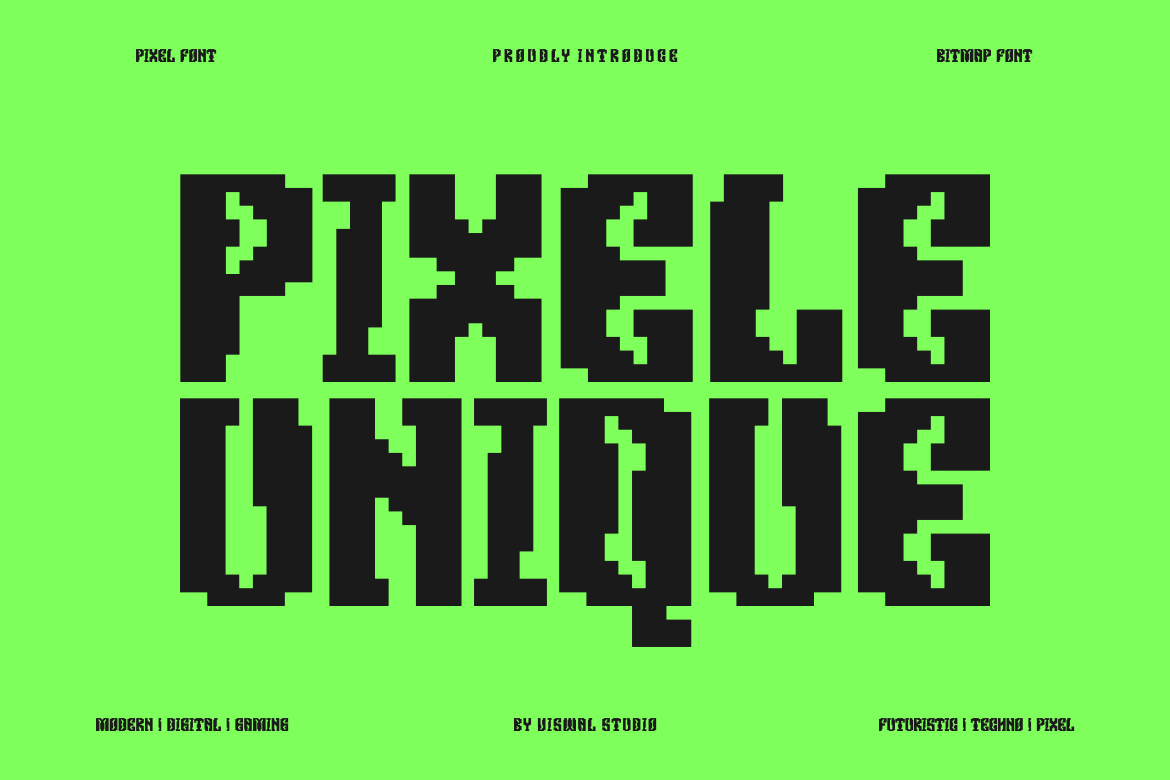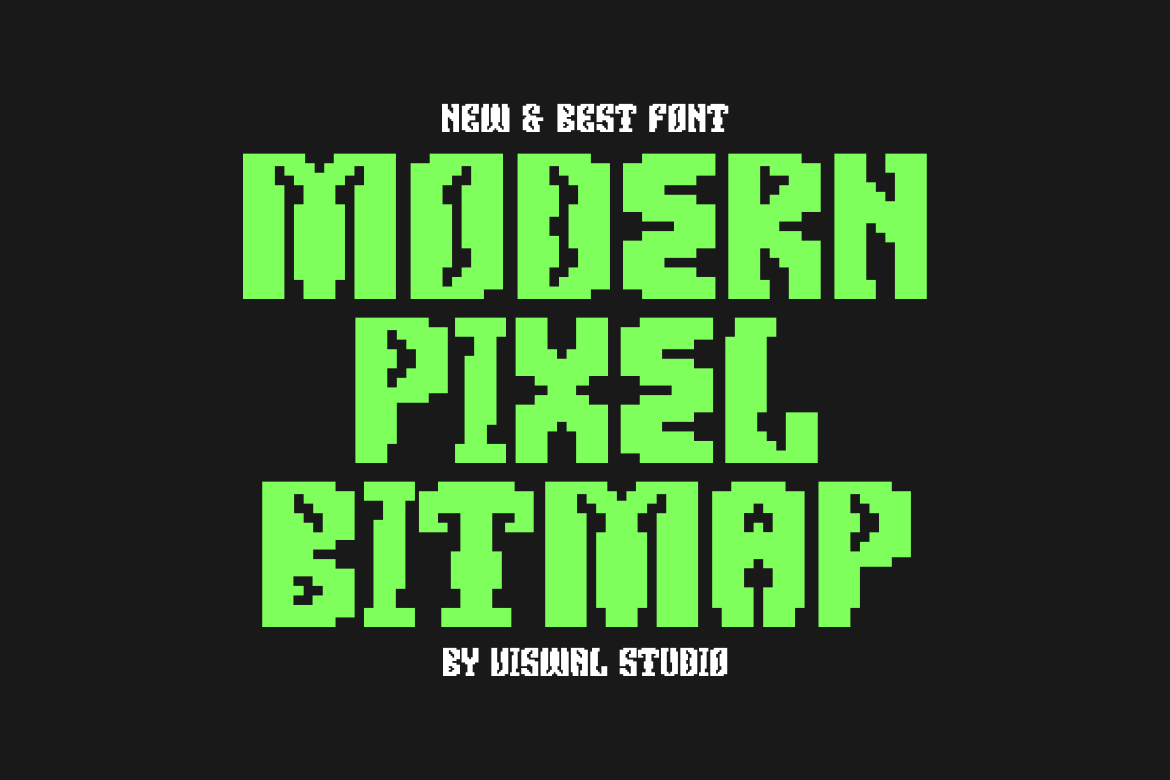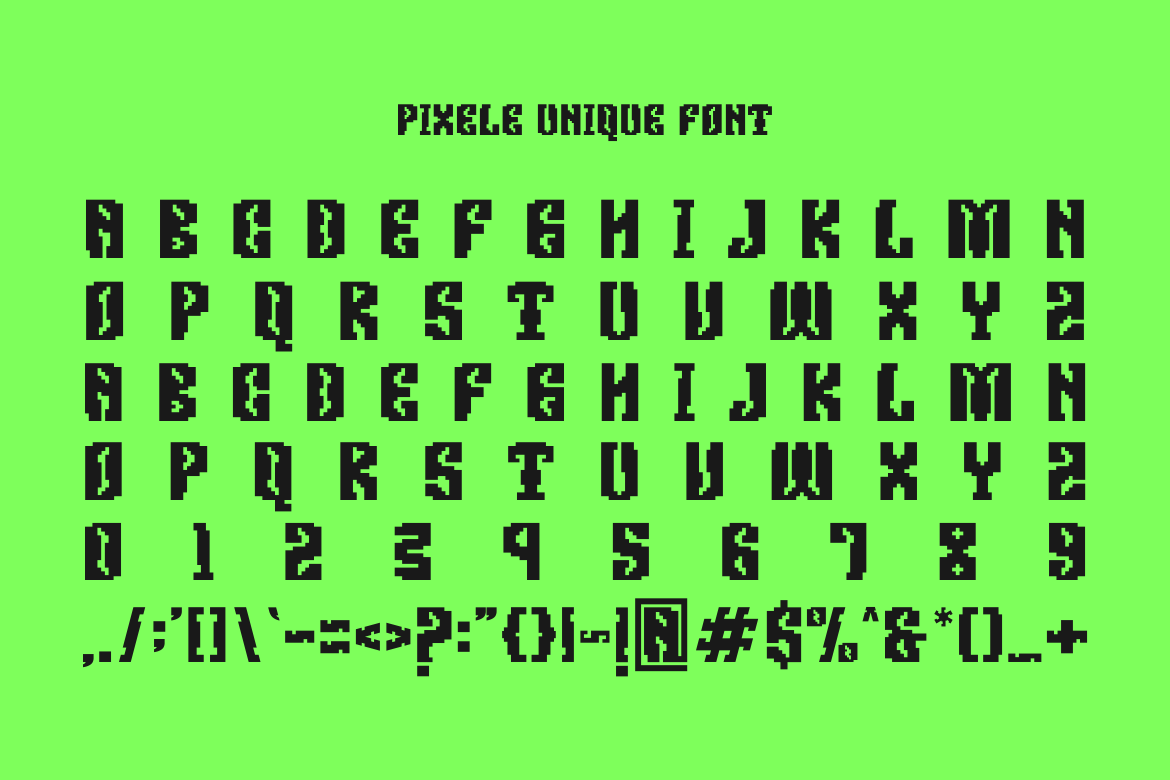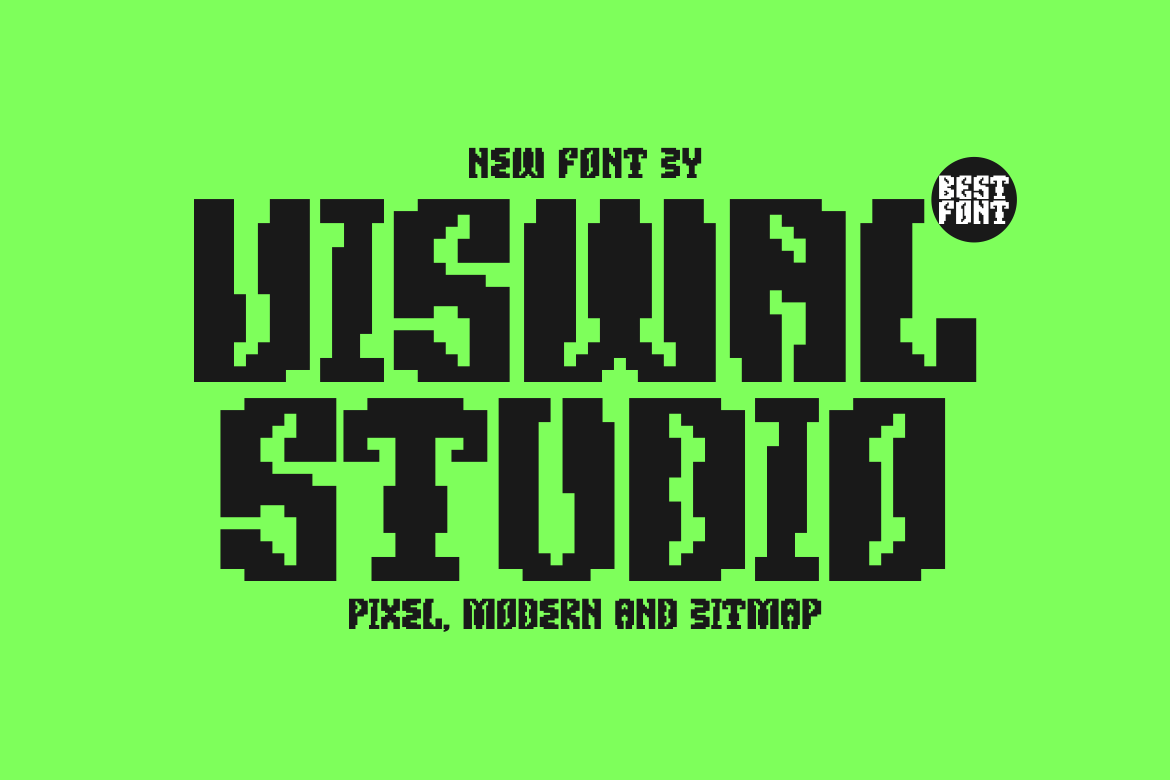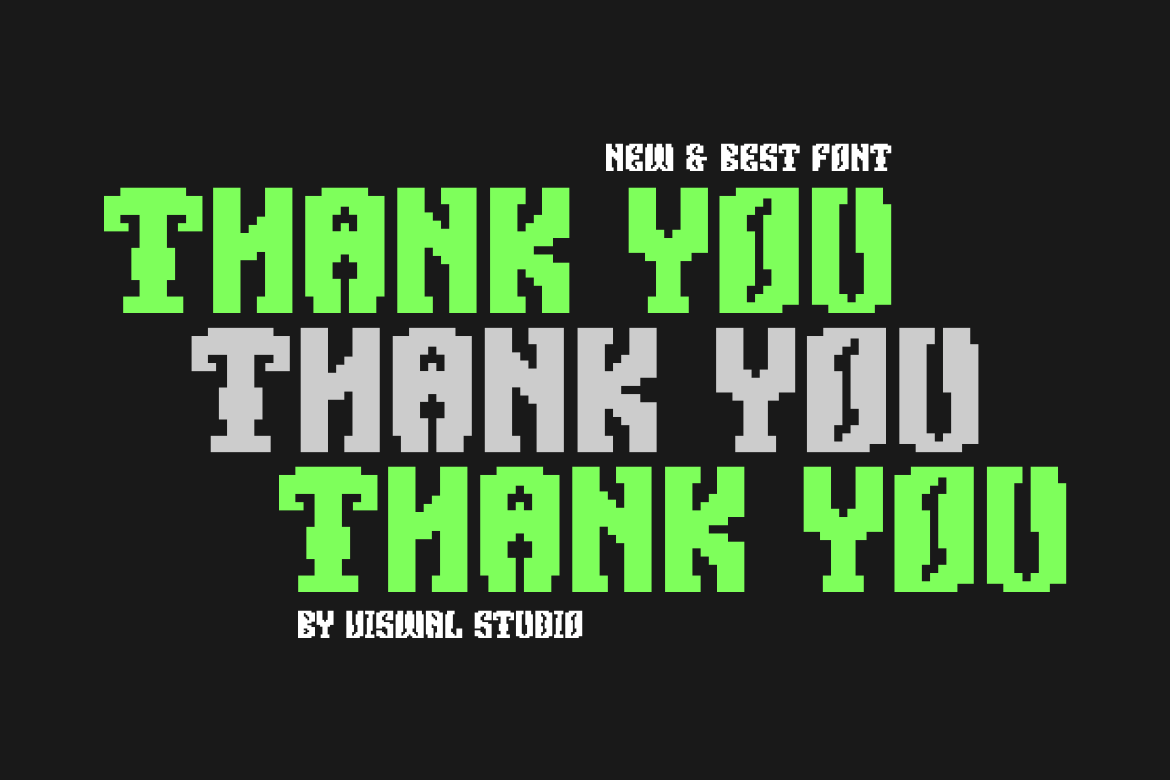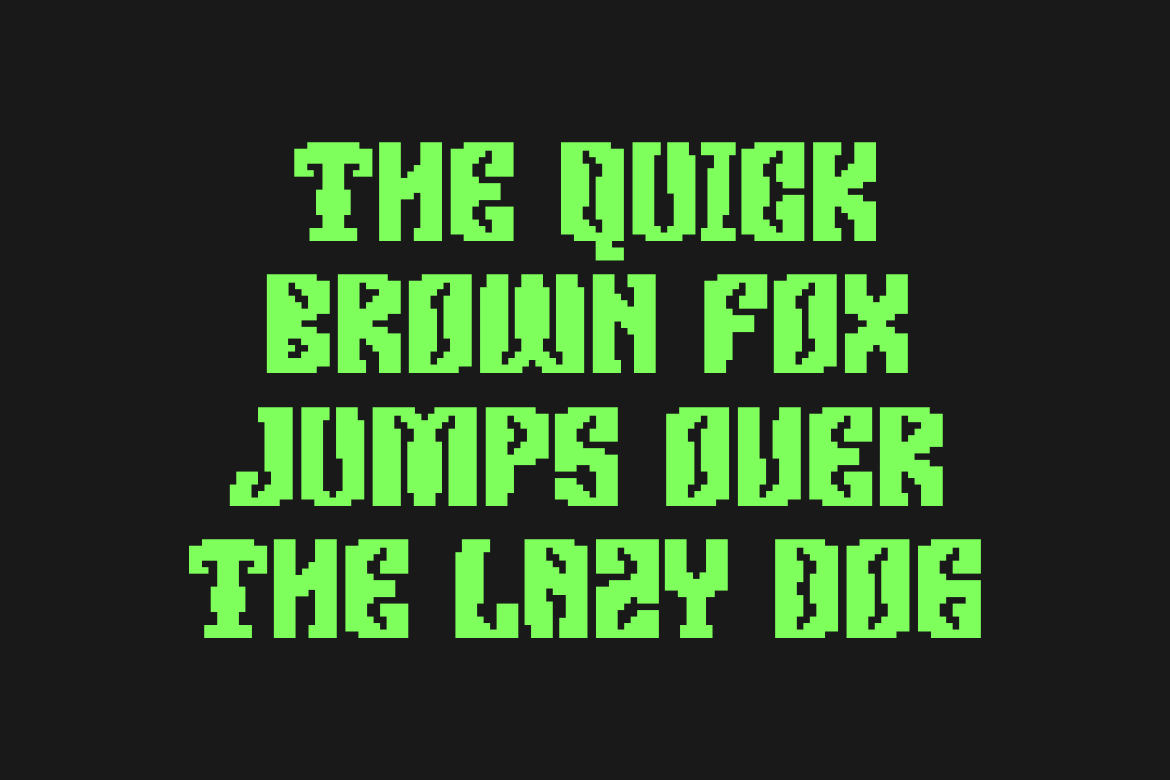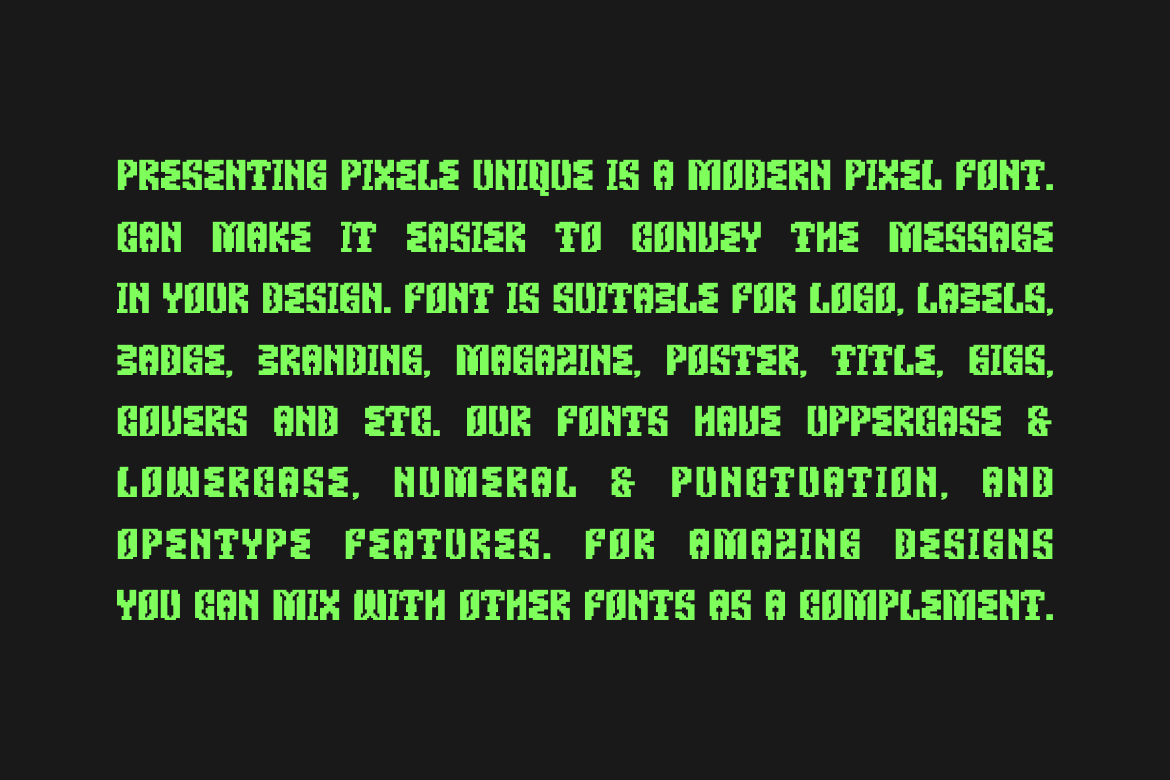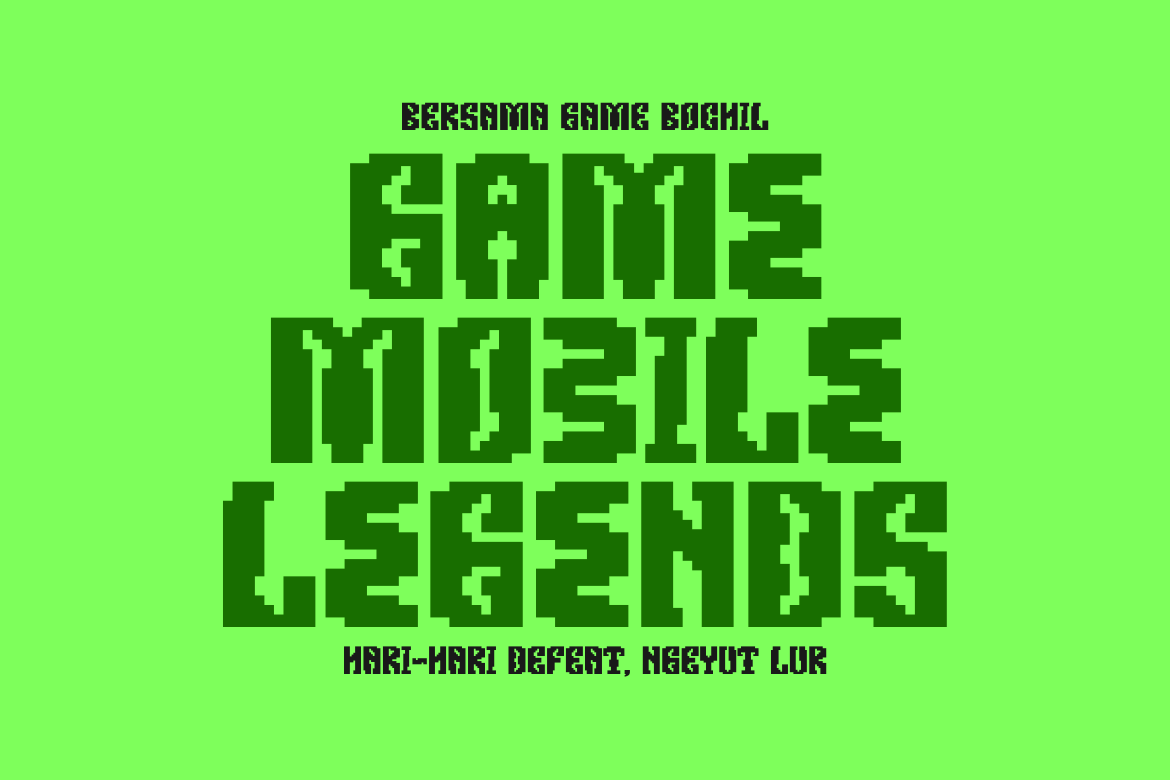
Pixele Unique – Game & Pixel Font
Presenting Pixele Unique Is A Modern Pixel Font.
Can Make It Easier To Convey The Message In Your Design. Font Is Suitable For Logo, Labels, Badge, Branding, Magazine, Poster, Title, Gigs, Covers And Etc. Our Fonts Have Uppercase & Lowercase, Numeral & Punctuation, And Opentype Features. For Amazing Designs You Can Mix With Other Fonts As A Complement.